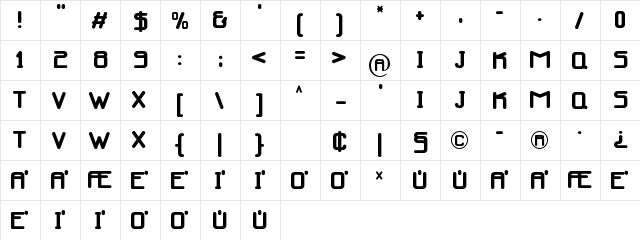
Infinity Media Regular
Design Context for Infinity Media Typeface
Infinity Media is a composed and adaptable typeface that performs quietly and consistently across a wide range of design contexts.